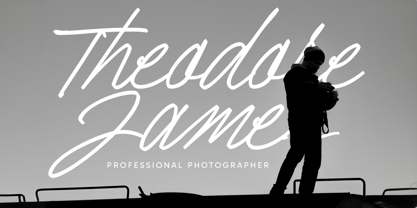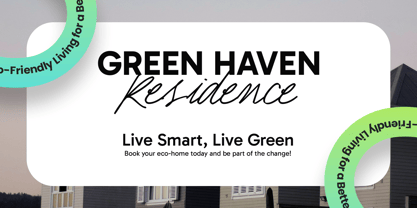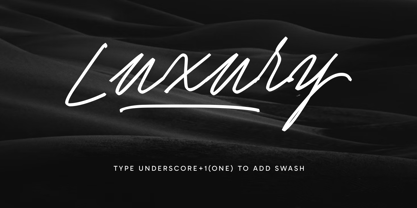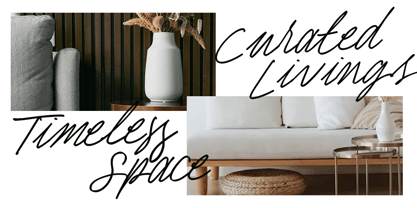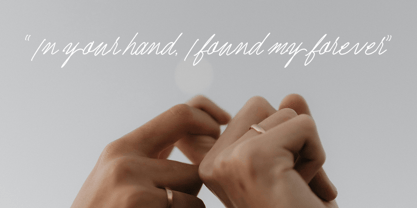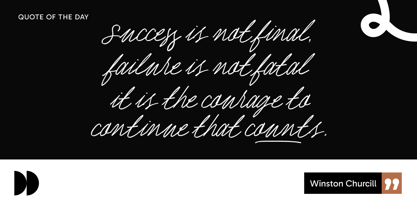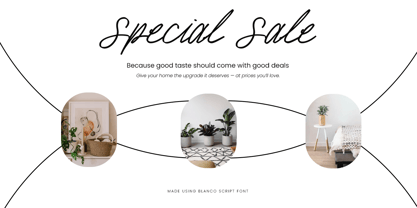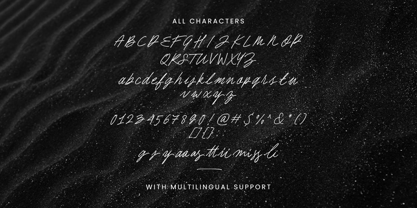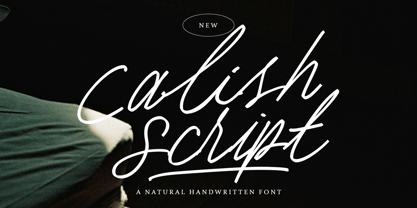
Calish Script
by Letterhend
The Calish Script Font Family was designed by Hendry Juanda and published by Letterhend. Calish Script contains 1 styles. More about this family
Calish Script is a natural handwritten font that captures the effortless charm of real handwriting with a slightly edgy, editorial twist. Its thin, fluid strokes and loose, spontaneous rhythm make it perfect for fashion branding, magazine layouts, personal logos, and creative projects that aim to feel authentic and expressive. Features : Uppercase & lowercase Numbers and punctuation Alternates & Ligatures Multilingual Support PUA encoded
Designers: Hendry Juanda
Current Foundry: Letterhend